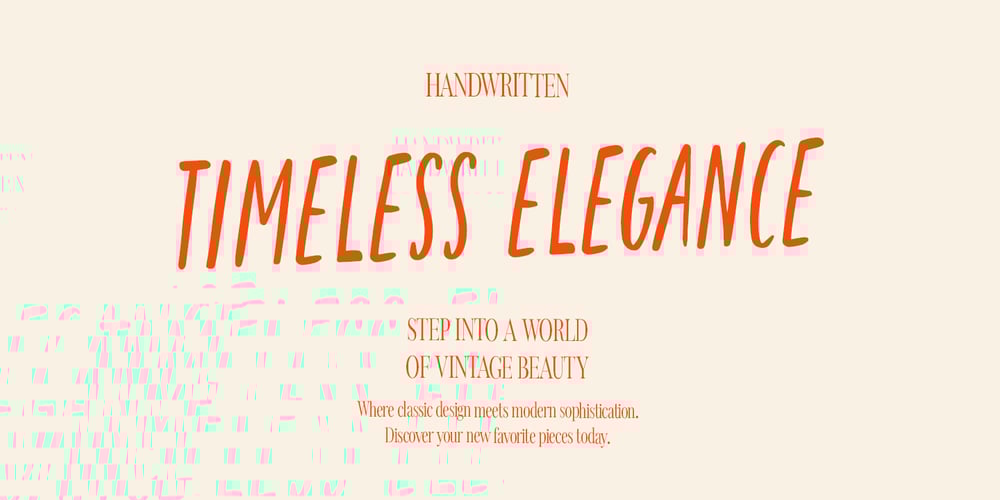
Timeless Elegance Font Family was designed by Dmitrii Chirkov and published by Supfonts. Timeless Elegance contains 1 styles and family package options. Discover Timeless Elegance!A charming, hand-drawn serif that seamlessly blends classic sophistication with a modern twist. Perfect for everything from elegant invitations and standout posters to chic stationery and unique branding. Timeless Elegance is your all-in-one solution for creative projects.What’s Included:Complete multilingual support for European languages:AÁĂÂÄÀĀĄÅÃÆBCĆČÇĊDÐĎĐEÉĚÊËĖÈĒĘẼFGĞĢĠḠHĦIIJÍÎÏİÌĪĮĨJKĶLĹĽĻŁMNŃŇŅÑOÓÔÖÒŐŌØÕŒPÞQRŔŘŖSŚŠŞȘẞTŤŢȚUÚÛÜÙŰŪŲŮŨVWẂŴẄẀXYÝŶŸỲỸZŹŽŻLet your imagination soar with Timeless Elegance!